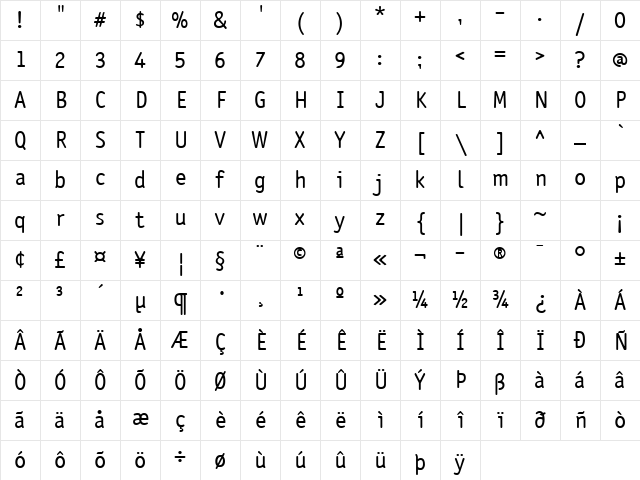
Saturday Sans ICG Regular Free Font
Saturday Sans ICG Regular
Saturday Sans ICG Family
Complete Saturday Sans ICG Regular glyph index. Displaying only characters natively supported by Saturday Sans ICG Regular font.
Design Context for Saturday Sans ICG
Saturday Sans ICG is a composed and adaptable typeface that performs quietly and consistently across a wide range of design contexts.